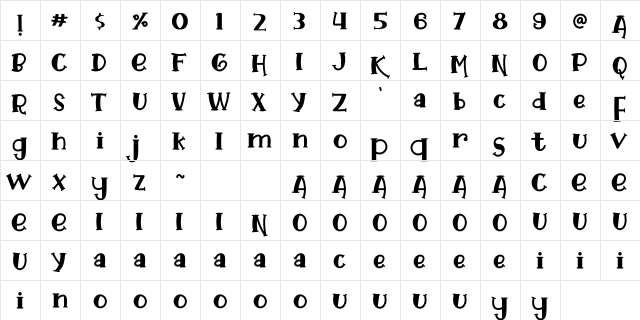
Funky Tiger Regular
| Foundry | Airotype Design |
| Designer | Rofiq Soelta |
Design Context for Funky Tiger Typeface
Funky Tiger trades formality for fun, with bouncy, characterful letterforms that bring warmth and energy to any project.
Font Pairing: Pairs well with a rounded or humanist sans for body copy, maintaining the friendly tone without relying on Funky Tiger to carry extended reading.
Pro Tip: Avoid using Funky Tiger for long passages of text — it works best for headlines, labels, and short calls to action.